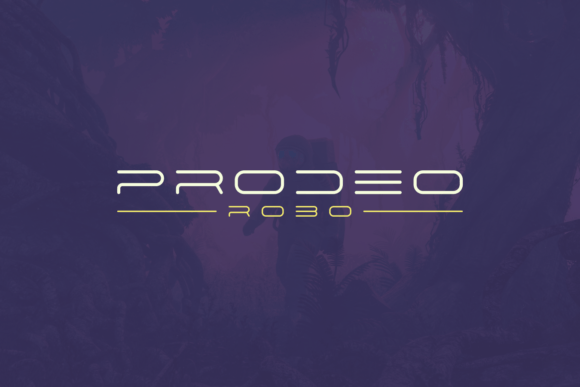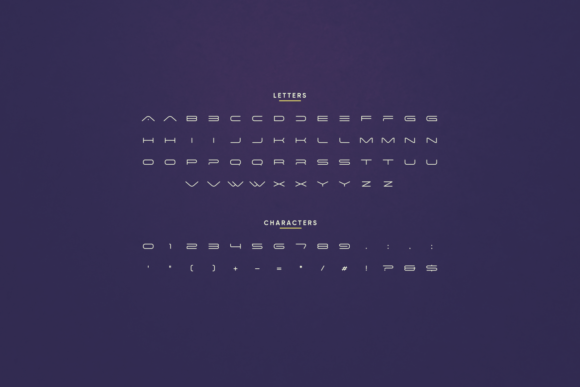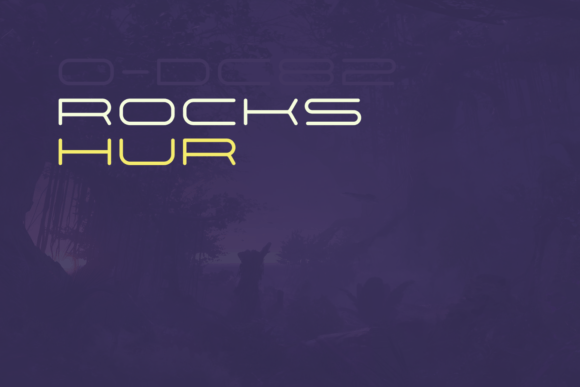
Crobor Font – Free Download
Introduction to Crobor Font
Crobor is a stylish and cool sans-serif font.
| 📌 Product Name | Crobor Font |
| 👤 Author | Letterna |
Key Features of Crobor Font
Why Choose Crobor Font?